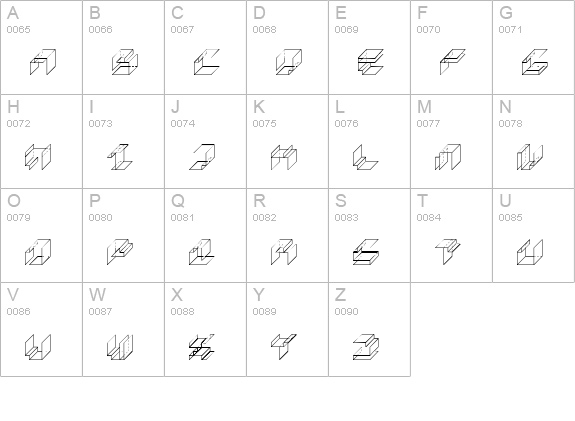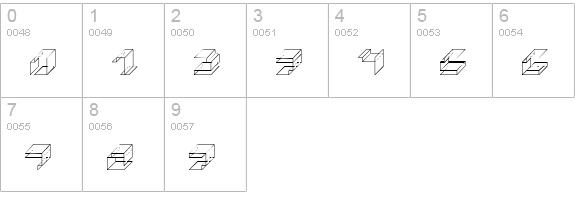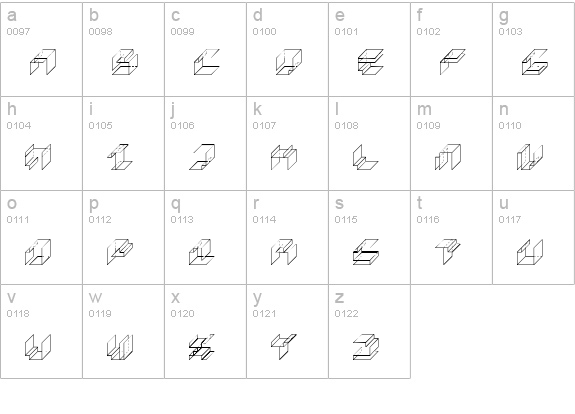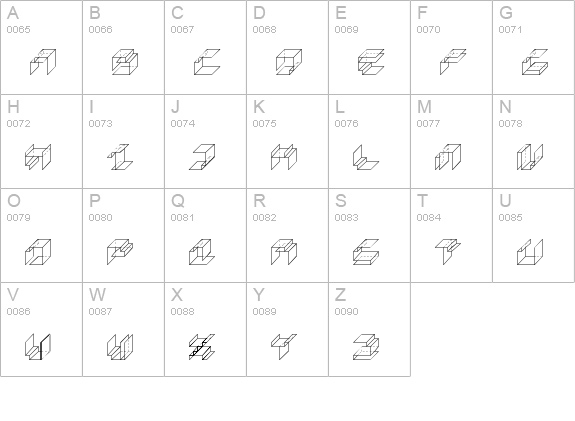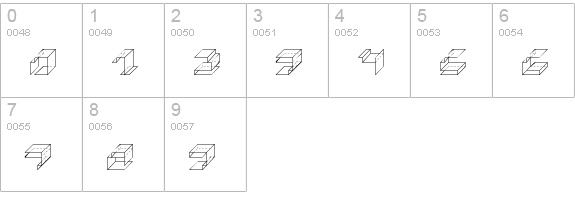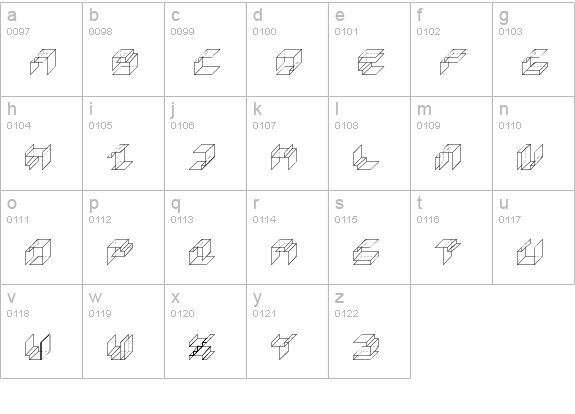
The Paper Cube *cube version*Regular font is a stunning typeface that exudes a unique charm and elegance. With its clean lines and bold design, this font showcases a perfect balance between modernity and sophistication. Whether you're designing a logo, creating a poster, or crafting a captivating website, this versatile font will add a touch of professionalism and creativity to your projects. One of the most remarkable features of the Paper Cube *cube version*Regular font is that it is freely available to download at FontsMarket.com. This means that you can easily access this amazing font without any hassle or cost. FontsMarket.com is a trusted platform that offers a wide range of high-quality fonts, and the Paper Cube *cube version*Regular font is no exception. You can simply visit the website, find the font, and start using it in your designs right away. The Paper Cube *cube version*Regular font is perfect for various design purposes. Its bold and eye-catching appearance makes it ideal for headlines, titles, and captions, capturing the attention of viewers instantly. Additionally, its legibility and clarity ensure that your message is conveyed effectively, even in smaller sizes or on different backgrounds. Whether you're a professional designer or an enthusiastic hobbyist, the Paper Cube *cube version*Regular font is a must-have in your font collection. Its versatility, elegance, and the fact that it is freely available for download at FontsMarket.com make it an irresistible choice. So why wait? Download the Paper Cube *cube version*Regular font today and let your creativity soar to new heights.